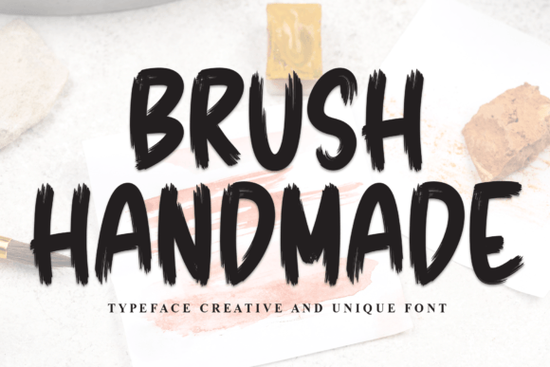
If you’ve been searching for a handwritten font that feels warm, personal, and effortlessly stylish, Brush Handmade Font might be exactly what your next project needs. It’s not flashy or overly ornate just sweet, friendly, and full of character. Whether you’re designing greeting cards, branding materials, or print-on-demand merchandise, this font adapts naturally without losing its charm. Its brush-like strokes mimic real handwriting, which helps your designs feel more human and less robotic something customers and clients notice, even if they don’t say it out loud.
What kinds of projects work best with Brush Handmade?
This font shines in casual, heartfelt, or lifestyle-focused designs. Think:
- Wedding invitations or baby shower cards
- Quotes for social media or wall art
- Product packaging for small-batch goods like candles or soap
- T-shirt slogans or tote bag prints
- Blog headers or Etsy shop banners
It pairs especially well with minimalist layouts or rustic themes. If you’re working on something summery or nostalgic, you might also enjoy how it complements fonts like Summertime Sadness both carry that laid-back, hand-touched vibe. For more playful energy, try layering it with Doodline, which adds bounce and whimsy without clashing.
Is Brush Handmade easy to use for beginners?
Absolutely. You don’t need advanced design skills to make it look good. The letterforms are clean and legible at most sizes, and the spacing is forgiving no need to tweak kerning unless you’re going for ultra-precise alignment. If you’re new to using script fonts, start by testing it in short phrases rather than long paragraphs. That way, you get a feel for how the rhythm of the letters flows together.
One tip: avoid using all caps. This font was designed to mimic natural handwriting, so lowercase (or sentence case) will always look more authentic. Also, give it some breathing room too much text crammed together can make even the friendliest font feel cluttered.
How does it compare to other handwritten fonts?
Not all handwritten fonts are created equal. Some feel stiff or overly polished, while others are so loose they become hard to read. Brush Handmade strikes a nice balance it’s casual but not sloppy, artistic but not chaotic. If you’ve tried fonts like Farmhouse or Kindness Teacher, you’ll notice Brush Handmade sits somewhere in between: less structured than Farmhouse, but more refined than Kindness Teacher’s classroom-ready scrawl.
Any styling tips to make it stand out?
Here’s where creativity kicks in. Try these subtle tweaks to give your design extra personality:
- Add texture. Overlay a light paper grain or watercolor wash behind your text it enhances the handmade feel.
- Use color thoughtfully. Soft pastels or earthy tones complement the brush style better than neon or metallic shades.
- Layer with icons or illustrations. Simple line drawings or doodles (like leaves, stars, or coffee cups) pair naturally with the font’s organic flow.
- Try curved text paths. A gentle arc or wave makes headlines feel more dynamic and fun.
And remember sometimes less is more. Let the font breathe. Don’t force every design element to compete for attention.
Where should I start if I’m overwhelmed by font choices?
Pick one project. Just one. Maybe it’s a birthday card for a friend, or a logo mockup for your side hustle. Install Brush Handmade, open your favorite design tool, and play with it for 10 minutes. Type out a few words. Change the size. Try different colors. See how it feels. You don’t need to “master” it just get comfortable.
If you’re still unsure, download a few similar fonts for comparison. Look at Summertime Sadness Font, Doodline Font, Farmhouse Font, Kindness Teacher Font, and Handwriting Font test them side by side. You’ll quickly see which ones match your style and which don’t.
Quick checklist before you hit publish or print:
- ✅ Is the text legible at the final size?
- ✅ Does it pair well with your other design elements?
Fonts like Brush Handmade aren’t about perfection they’re about personality. So relax, experiment, and let your projects feel a little more human.